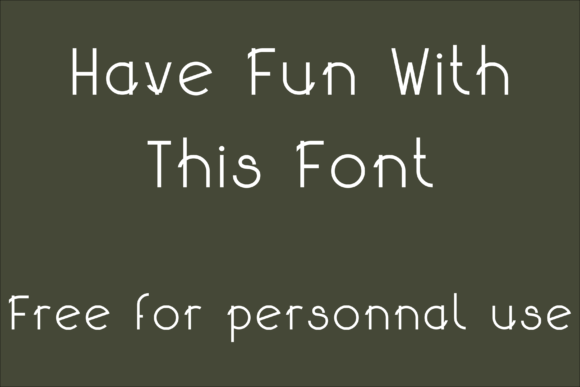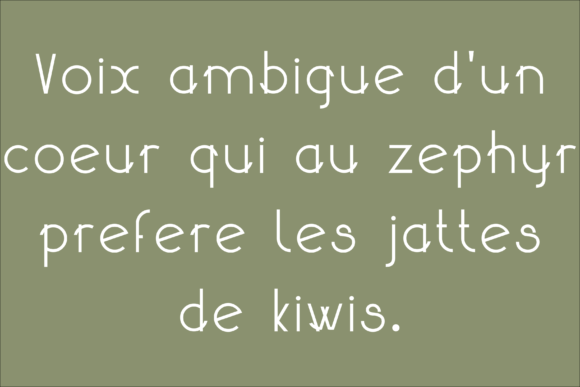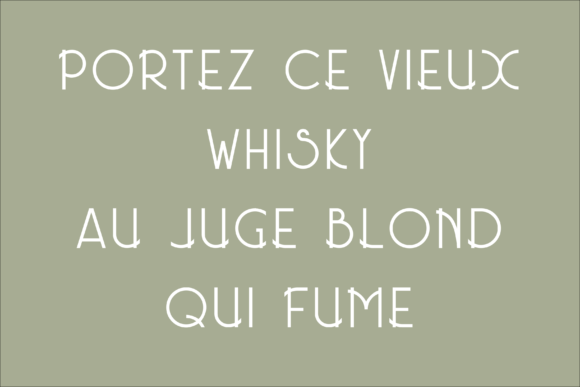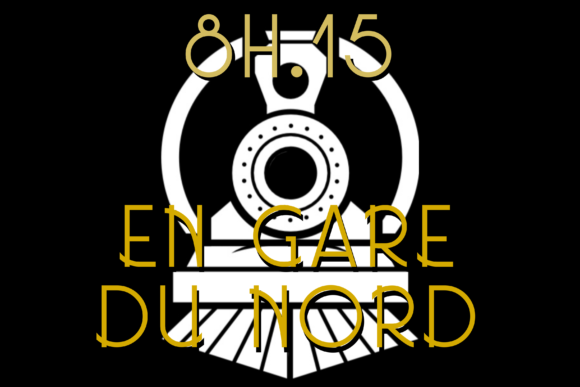
Introduction to Matheva Font
Have you ever found yourself staring at a blank canvas, trying to bring your creative vision to life? You’ve got a concept in mind, but the perfect font to match it seems elusive. That’s where the Matheva Font comes in – a modern and neat display font that can elevate your creative project to the next level.
As a valuable design resource, the Matheva Font is a high-quality addition to any designer’s toolkit. Its versatility makes it an ideal choice for a wide range of projects, from branding and advertising to digital products and artwork. With a transparent background that allows for seamless integration with any design, the Matheva Font is a game-changer for designers looking to make their creative projects stand out.
Key Features of Matheva Font
- High-quality, free design resource ideal for creative projects.
- Features a unique, hand-drawn style with a transparent background, allowing for versatility in design applications.
- Includes a comprehensive character set, covering a wide range of languages, making it a valuable resource for international design projects.
- With a high-resolution design, Matheva Font is suitable for both digital and print applications, ensuring crisp and clear typography.
Honest Review: Matheva Font
As a designer, I’m always on the lookout for high-quality design resources that can elevate my creative projects. Recently, I stumbled upon the Matheva Font, and I’m excited to share my honest review.
- ✨ The Matheva Font has a unique, elegant design that’s perfect for projects that require a touch of sophistication.
- ✨ The font is highly customizable, allowing for easy adjustments to suit your design needs.
- ⚠️ The font’s transparent background can sometimes be a bit finicky, especially when working with complex designs.
Overall, I’m impressed with the Matheva Font’s potential to elevate my designs. While it’s not perfect, its unique design and high quality make it a valuable addition to my design resource library.
The Matheva Font is perfect for creating unique and eye-catching designs. Some common use cases include:
- Wedding invitations
- Menu designs
- Brochures
Alternatives to Matheva Font
A high-quality script font ideal for creative projects that require a touch of elegance and sophistication. It’s perfect for designing wedding invitations, quotes, or any other project where a beautiful handwritten font is needed. Alex Brush Font offers a transparent background, making it easy to customize and use as a design resource.
Compared to Matheva Font, Alex Brush Font has a more elegant and refined feel, making it suitable for a wider range of creative projects.
A modern and elegant script font that’s perfect for designing posters, advertisements, or any other creative project that requires a high-quality, stylish font. Great Vibes Font is available for free download and features a transparent background, making it easy to use as a design resource.
Compared to Matheva Font, Great Vibes Font has a more modern and trendy feel, making it suitable for a wide range of creative projects.